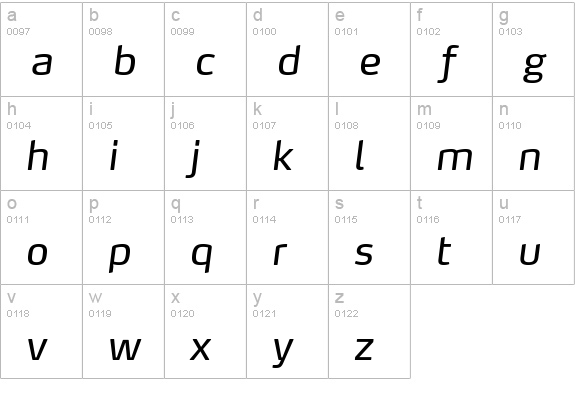
MaxTF-RegularItalic is a modern and stylish typeface that exudes elegance and sophistication. This italic font is perfect for adding a touch of flair to your design projects, whether it be for branding, advertising, or editorial purposes. The slanted letters create a sense of movement and dynamism, making this font a versatile choice for a wide range of applications. What makes MaxTF-RegularItalic even more appealing is that it is available for free download at FontsMarket.com. This means you can easily access and use this beautiful font in your projects without any cost. With its clean lines and distinctive italic style, MaxTF-RegularItalic is sure to make a statement and elevate the visual appeal of any design it is paired with.